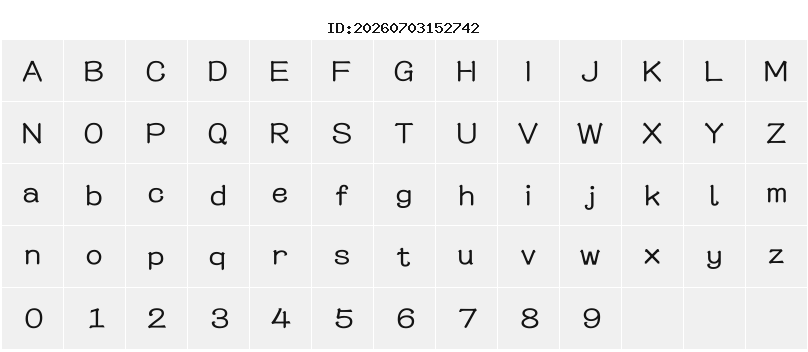
• Font Name: 330-上首兰亭体
• Full Font Name: 330-上首兰亭体
• Manufacturer: 上首造字
About 330-上首兰亭体.ttf
330-上首兰亭体.ttf is a modern, elegant sans-serif font designed for ultimate readability and visual harmony. Perfect for branding, headlines, web design, and print materials.